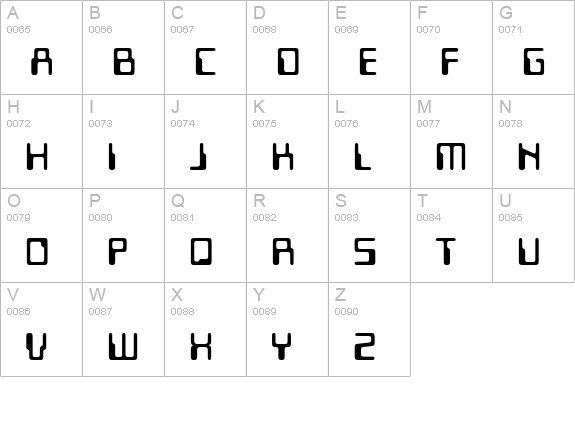
PFMicr Eight font is a sleek and professional typeface designed specifically for MICR encoding, commonly used in financial and banking institutions. Its clean lines and precise geometry ensure optimal readability and accuracy when printing checks and other financial documents. The PFMicr Eight font exudes a sense of reliability and security, making it the perfect choice for any financial application. What sets PFMicr Eight font apart is that it is available for free download at FontsMarket.com. This means that you can access this high-quality font without any cost, making it a valuable resource for businesses and individuals looking to enhance their financial documents with a professional touch. With its seamless integration into various design projects, PFMicr Eight font is a versatile and practical choice for anyone in need of a reliable MICR font.